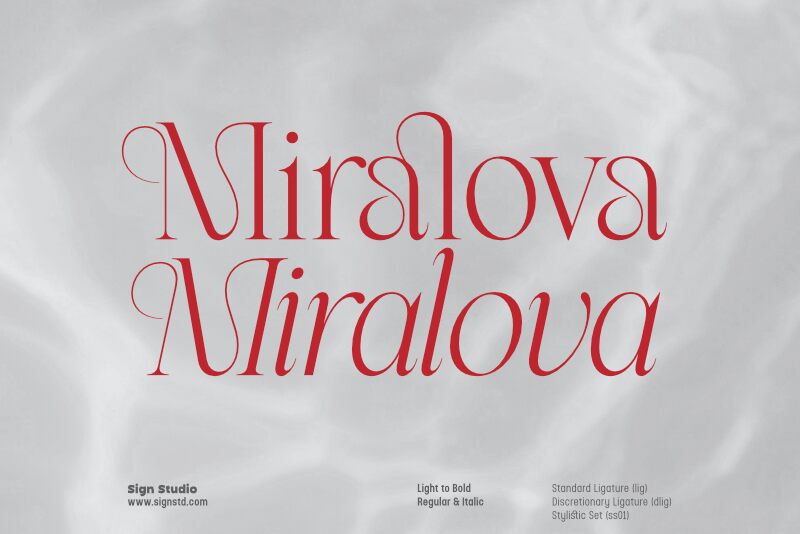
Miralova font family is a free font in two styles inspired by the retro art style. Majestic and finely crafted letterforms compose this font’s sophisticated overall look. Its graceful curves and flowing shapes create refined aesthetics with a stylish touch. This contemporary typeface reflects both subtle and strong classical influences, all through its decorative elements.
Elegant and elaborate, aesthetically pleasing Miralova finds its place in luxury branding and design. Introduce this typeface with all its decorative elements in product packaging, advertising, magazine titles, headlines, or poster projects.